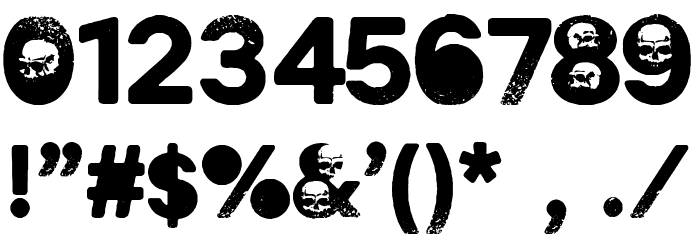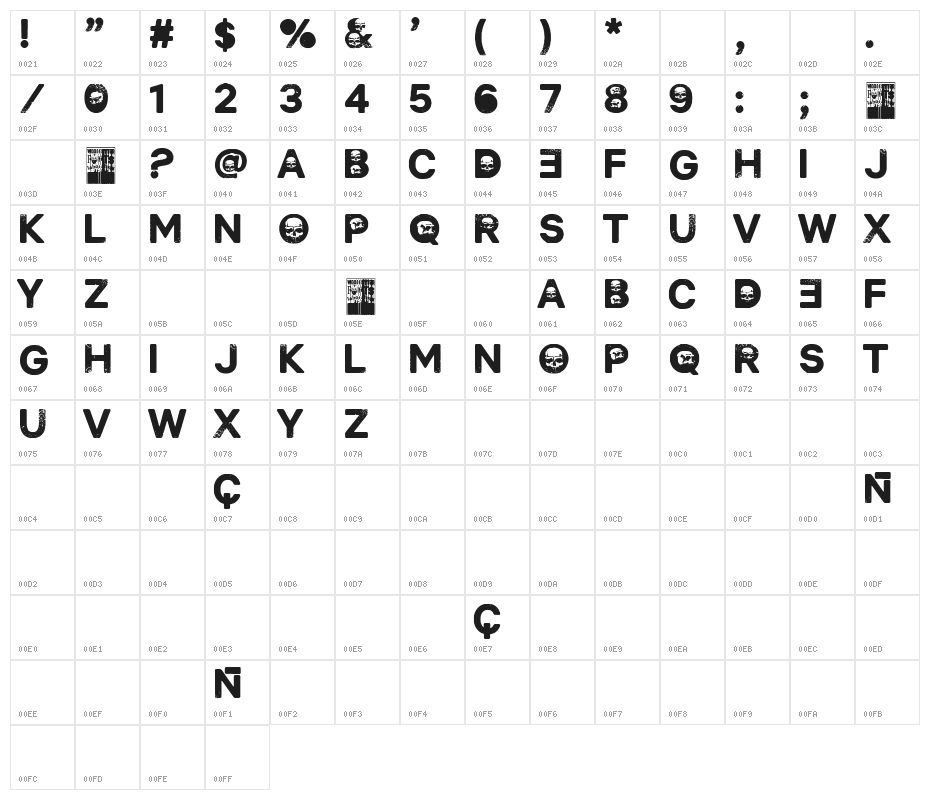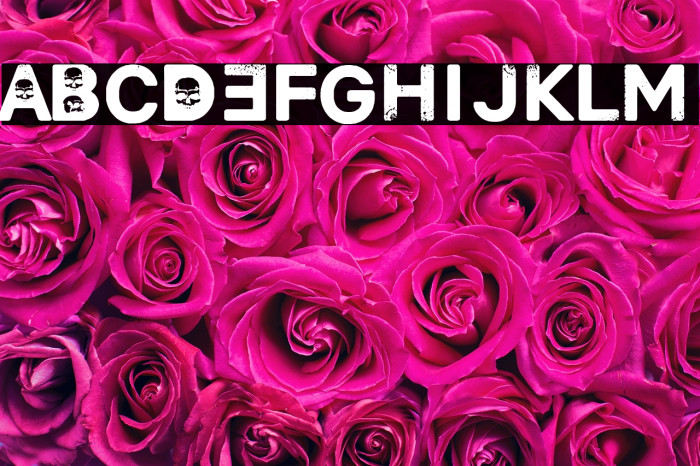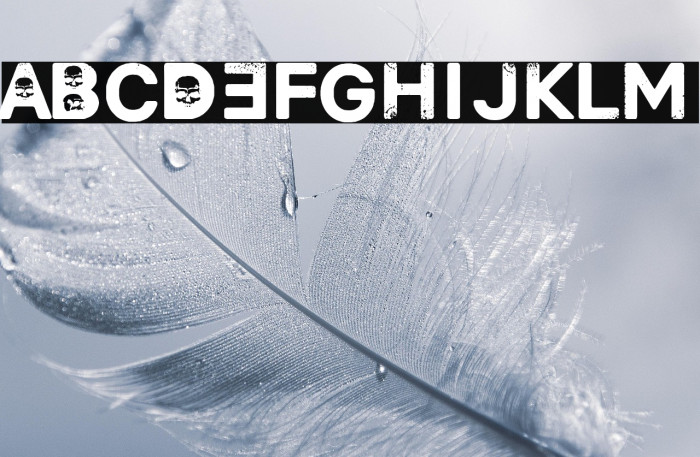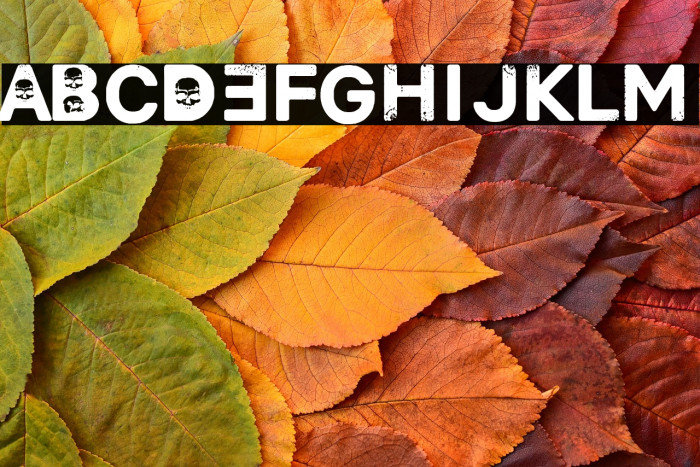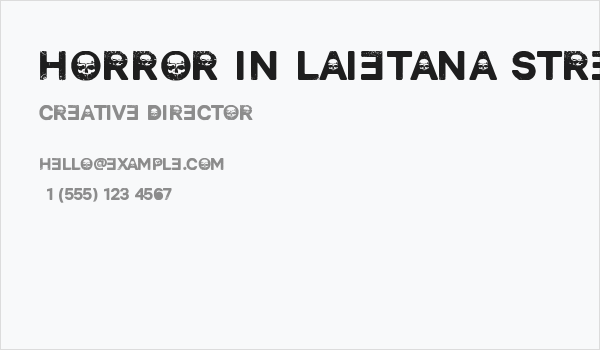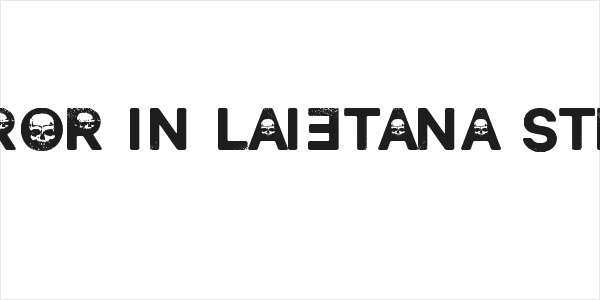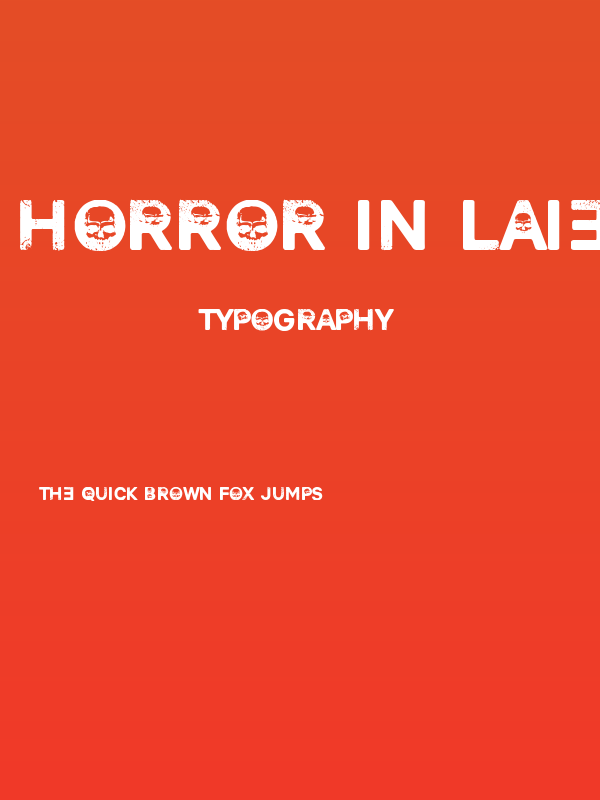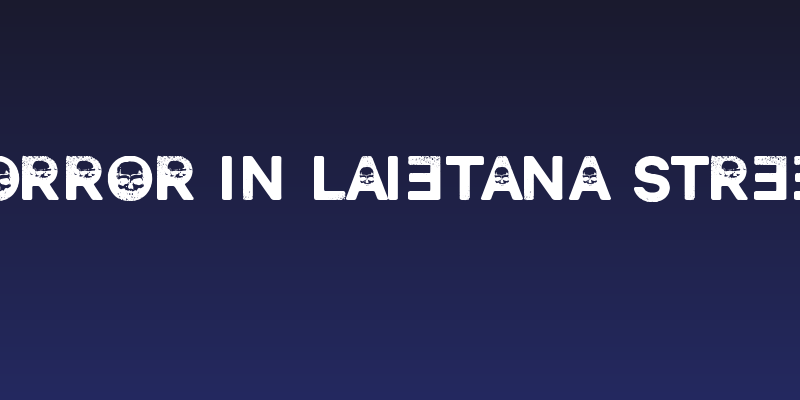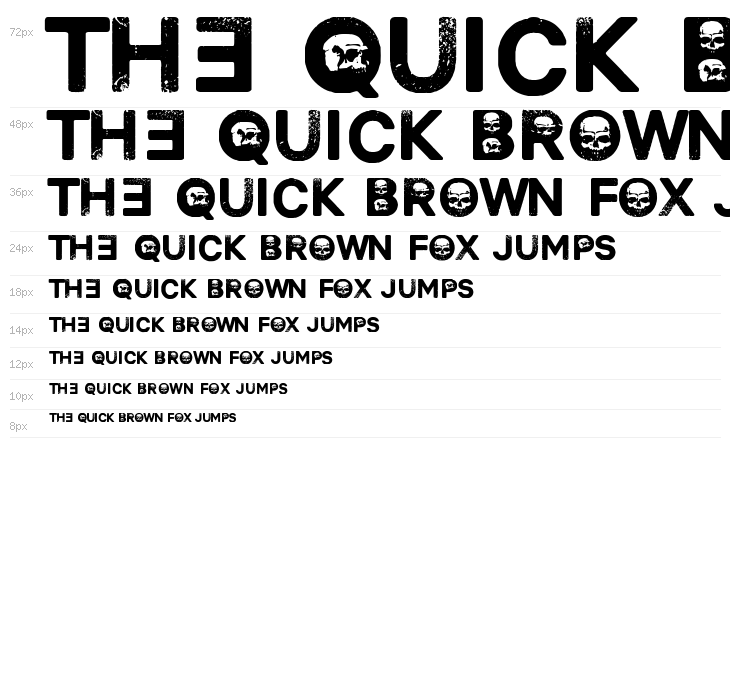
Horror in Laietana Street Font
Horror in Laietana Street Description
This font features a bold and distressed style, incorporating a horror-themed aesthetic with skull motifs embedded within certain characters. The letters are uppercase and maintain a consistent height, while the numbers and special characters follow the same design theme. The texture gives a worn, gritty appearance, enhancing its eerie and unsettling vibe. This font is ideal for projects that require a spooky or horror-related theme, such as Halloween events, horror movie posters, or themed party invitations. The unique design elements make it stand out, capturing attention with its bold and dramatic presentation.
| Proposed Projects | Ideal for Halloween events, horror movie posters, themed party invitations, and spooky merchandise. |